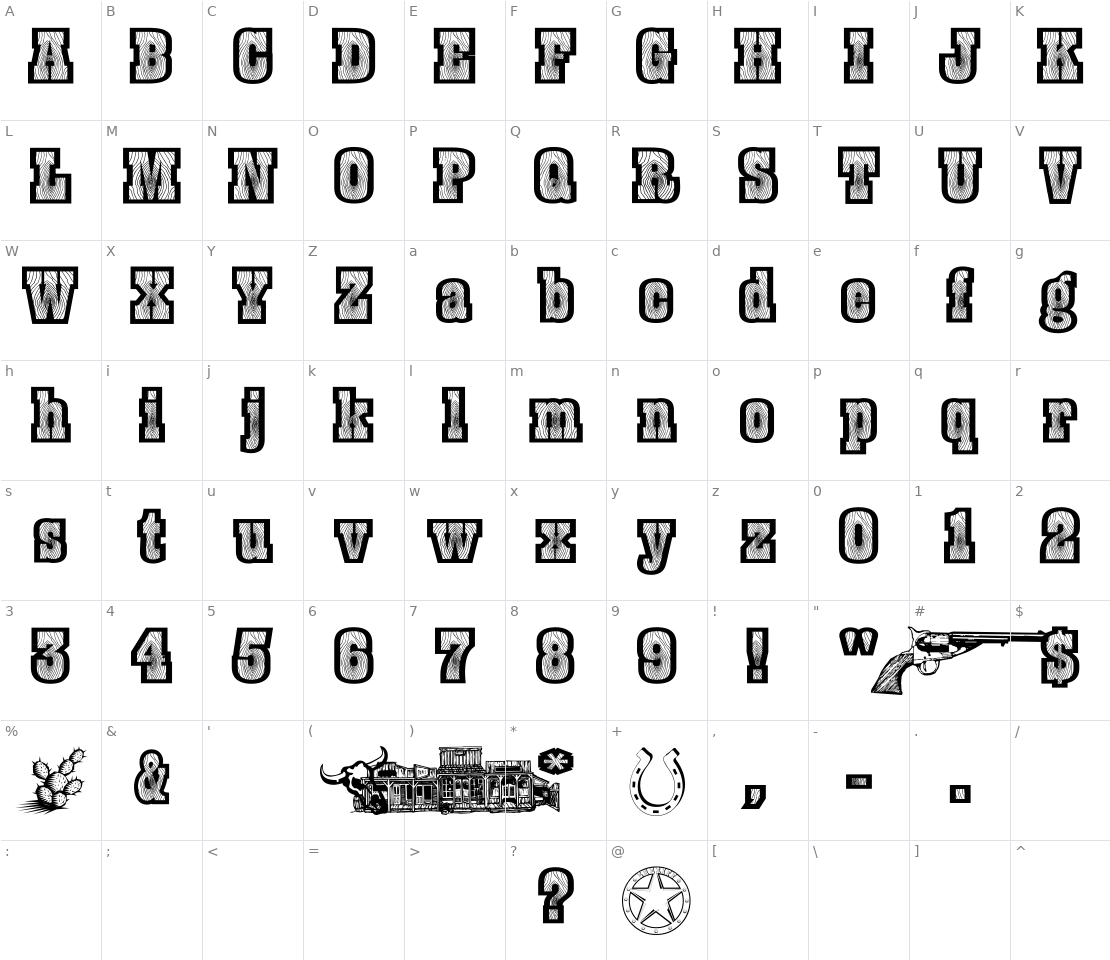
Burris
Burris is a bold slab display face from Gaut Fonts with a woodgrain texture carved into every letterform, giving it the look of letters engraved into a plank or stamped from a wooden block. The heavy strokes and western-leaning proportions make it feel like signage from an old frontier town. Best kept to headlines, posters, and display work where the textured detail can really show through.